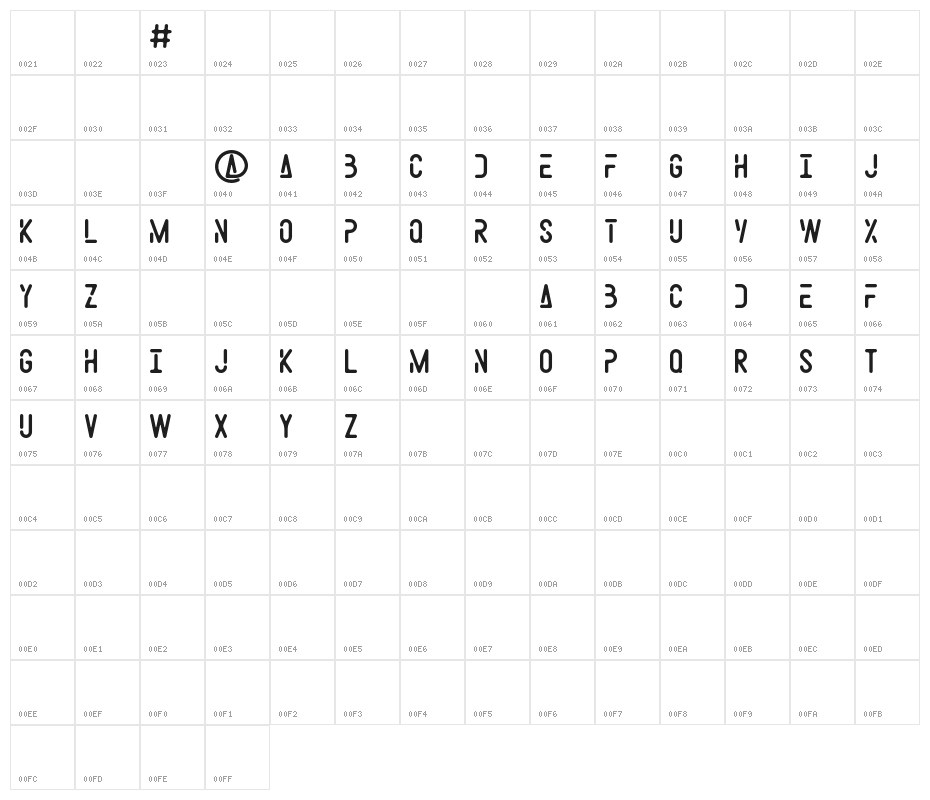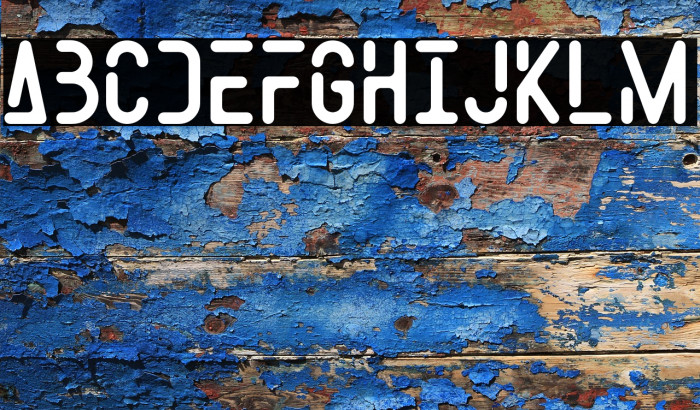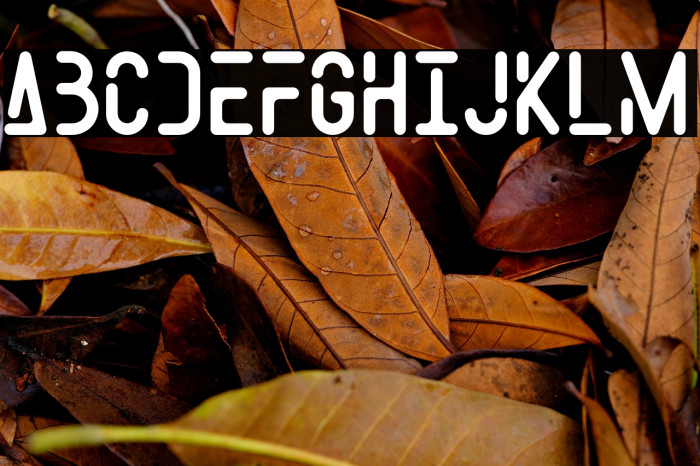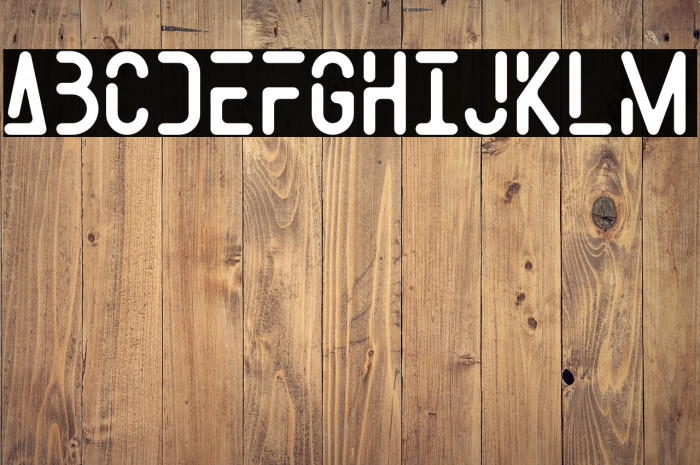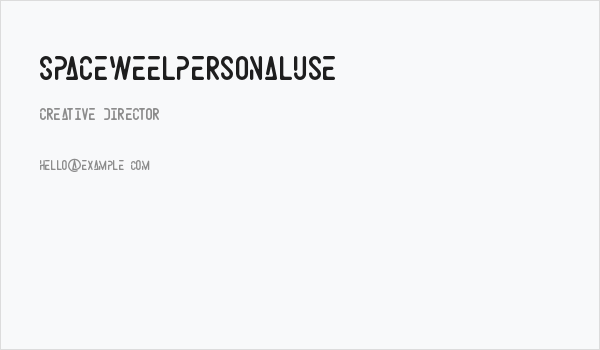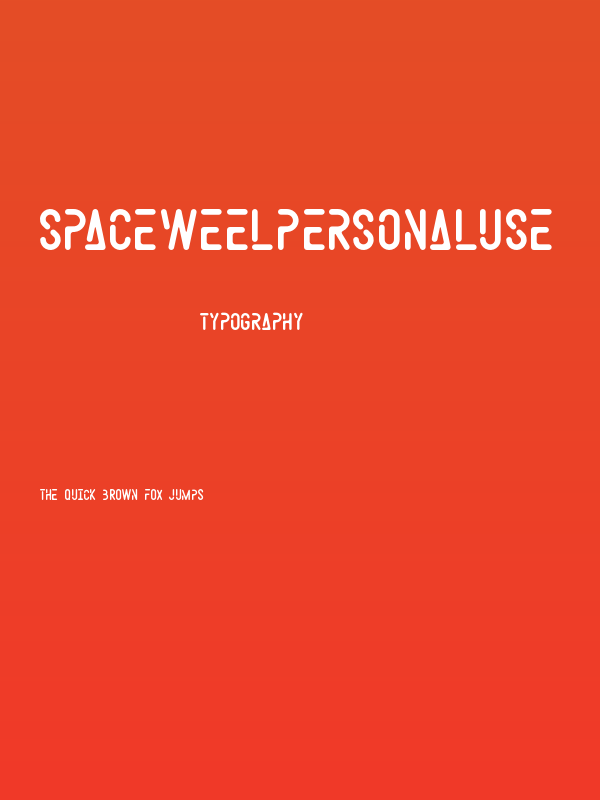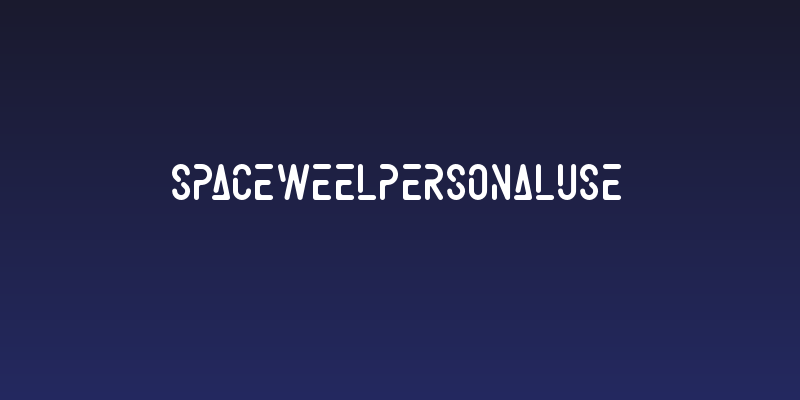
SpaceWeelPersonalUse Font
SpaceWeelPersonalUse Description
This font features a futuristic and geometric design with a unique, rounded style. The characters are bold and have a consistent thickness, creating a strong visual impact. The letters are constructed with a combination of straight lines and curves, giving them a modern and sleek appearance. The uppercase letters are particularly distinctive, with some characters incorporating unconventional shapes and angles. This font is ideal for projects that require a contemporary and innovative look, such as technology branding, sci-fi themes, or modern advertising. Its boldness and geometric nature make it stand out, while the rounded edges soften the overall appearance, adding a touch of approachability.
| Proposed Projects | Ideal for technology branding, sci-fi themes, modern advertising, and innovative design projects. |